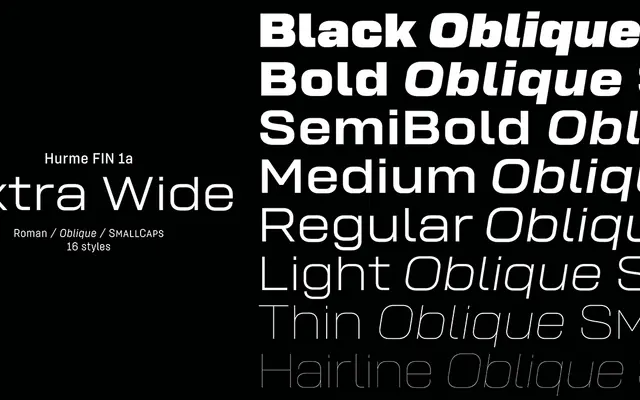
Hurme FIN 1a Extra Wide
The extra-wide cut of Hurme FIN 1a, a monolinear grotesque spanning eight weights with obliques, part of a nine-width, eight-weight system totalling 144 styles.
Hurme FIN 1a Extra Wide sits at the broad end of a large sans-serif family that runs from Compressed to Expanded across nine width variants. The design is strictly monolinear with horizontal stroke terminals, short ascenders and descenders, and optically adjusted obliques rather than true italics. OpenType features include small caps, stylistic sets, oldstyle figures, tabular lining figures and a slashed zero; purchasing this family also includes the corresponding weights of FIN 1b, an alternative cut with angular, monospace-inspired characters and slab serifs.
A simplified monolinear sans-serif with horizontal stroke terminals and an optically adjusted oblique, placing it squarely in the grotesque tradition without humanist or geometric inflection.